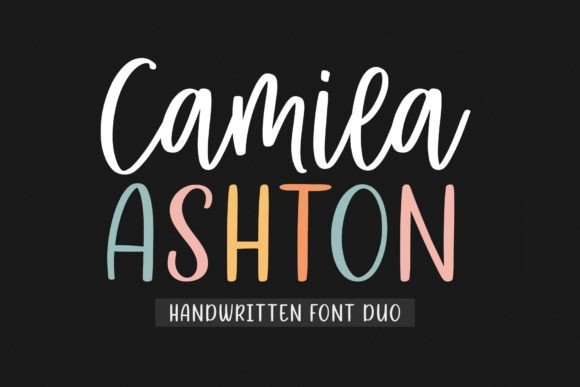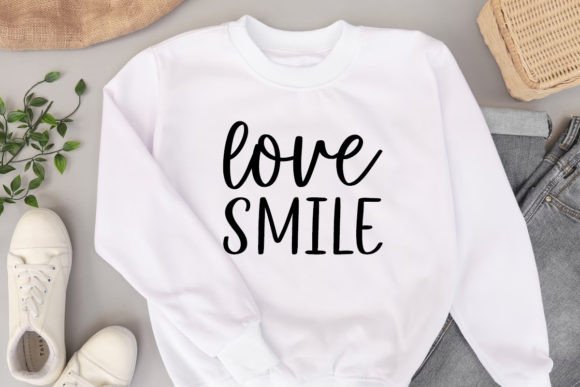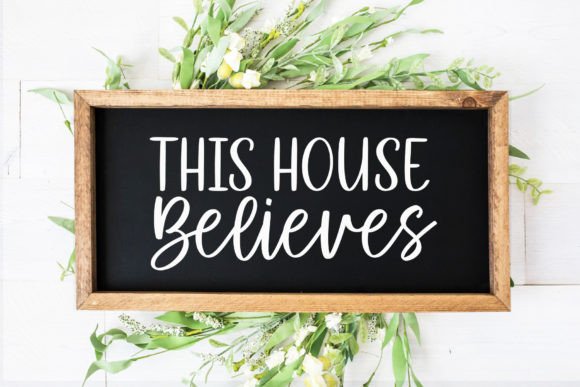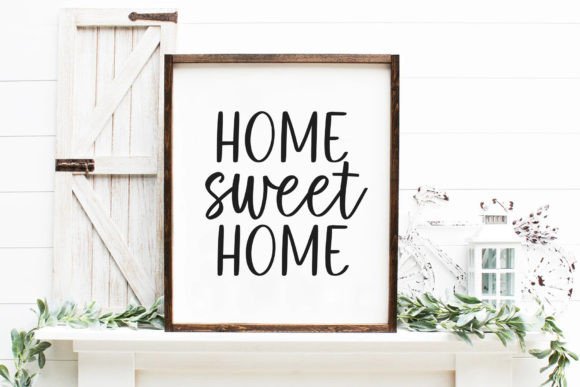
Camila Ashton Font: A Stylish Handwritten Font for Cricut & DIY Projects
About the Camila Ashton Font
Discover the charm of Camila Ashton Font. This font is a perfect blend of modern aesthetics and classic appeal. Camila Ashton is a modern, stylish, and flowing handwritten font duo (script and display). It has beautiful and well-balanced characters and as a result, it matches a wide pool of designs. It is the best choice for creating eye-catching logos, branding, and quotes. Add it to your most creative ideas, and notice how it makes them come alive!
Camila Ashton’s elegant yet playful script and display styles excel in branding projects requiring a touch of sophistication and personality. It’s ideal for logos, short headlines, invitations, and social media graphics, where its flowing nature adds visual interest. However, its delicate stroke weight makes it unsuitable for extended body text or small sizes within user interfaces.
Pairing Camila Ashton is straightforward. For a balanced contrast, consider a clean sans-serif like Montserrat or Open Sans for body copy and supporting text, creating a modern and accessible design. Alternatively, a classic serif like Garamond or Playfair Display could lend a more traditional yet equally harmonious feel, perfect for high-end branding or stationery.
The font exudes a modern yet romantic feel; its personality is best described as sophisticated and approachable, suitable for brands aiming for a balance between style and approachability.
Camila Ashton Font Usage Examples
Camila Ashton Font Example